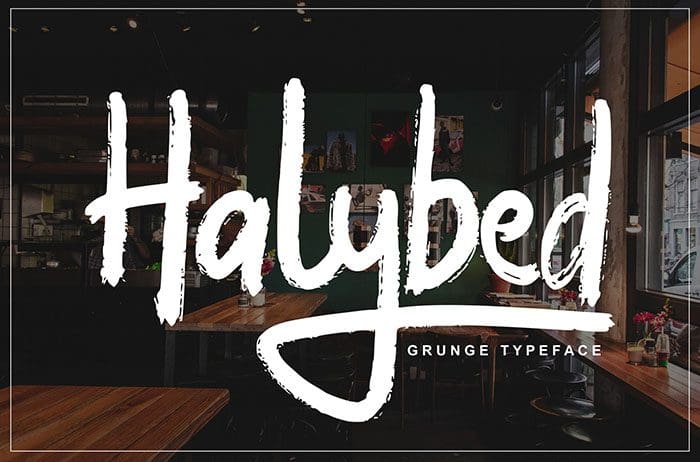
Halybed decorative font feels equally charming and elegant. This stunning decorative font is a stylish homage to classic calligraphy. Thanks to Vunira Studio for sharing this font! Take a look at this portfolio for more of his stunning fonts.
Designed By : Vunira Studio